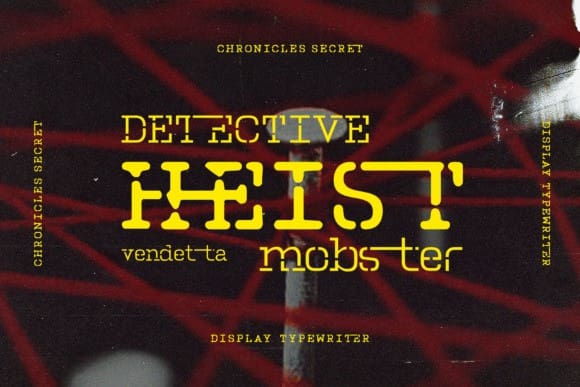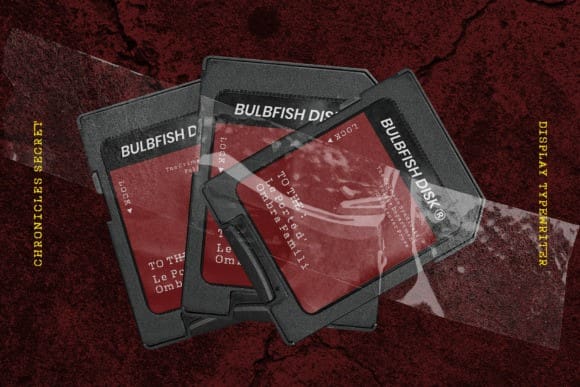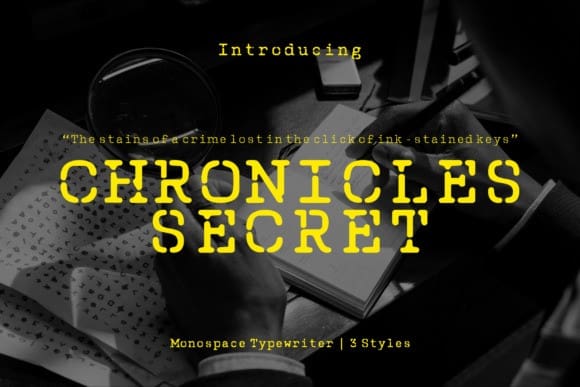
Chronicles Secret Font
Chronicles Secret Font – inspired by the rhythmic clatter of vintage typewriters, whispers tales of suspense and mystery. Its three distinct styles – angular, rounded, and smooth – offer a unique blend of typewriter charm and contemporary flair, ensuring a font for every narrative. Whether you seek the sharp precision of angular strokes, the inviting warmth of rounded curves, or the dreamy intrigue of blurred edges, Chronicles Secret empowers your design with a touch of vintage magic. Its diverse ligatures, echoing the intricate dance of typewriter keys, further enhance your typographic artistry.